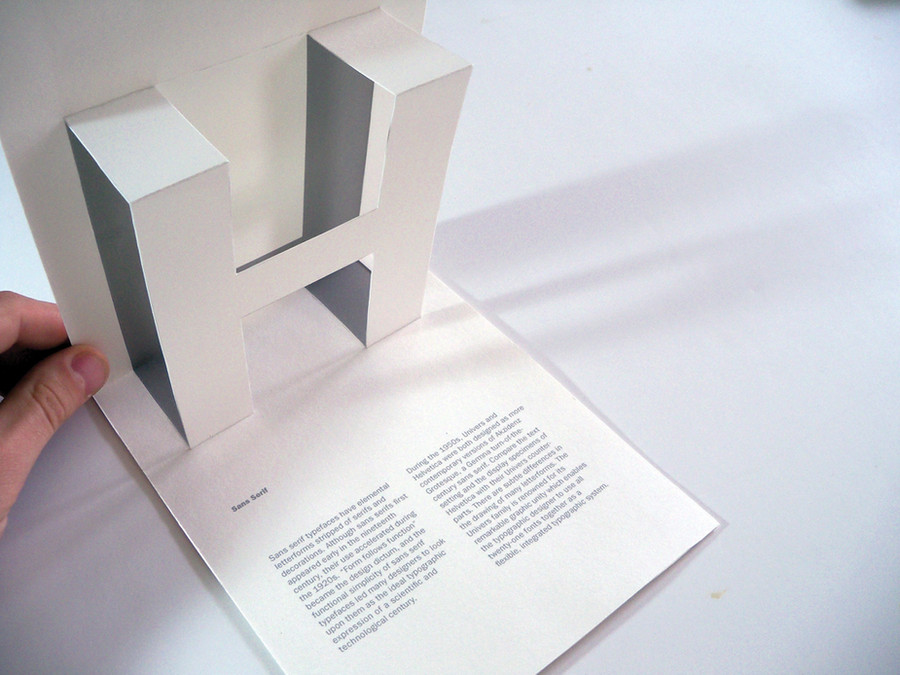
For this self-initiated project, I wanted to promote the history of the five basic classifications of typefaces in a new and interesting way. Opposed to simply reading text on the history of typefaces and looking at an example on a 2D surface, why not give some life to history.Each individual pamphlet contains a brief history on one classification of a typeface. When opened, a letter pops out at the viewer, giving an example of that typeface accompanied by a brief history at the bottom as well as a small description of what letter is being shown for the viewer.
btw ive just realize you hace made the work twice because i see a white paper bhind the printed one, is that correct?
It took 2 pieces of paper to make this project, on for the pop up letter and text, and one for the gray background behind the letter.
Really nice designed, simple and effective, Everything communicates something, i love the white space all around, i love the texture, as well as the typeface. just wondering how it would look with the left paragraph aligned with the last sentence of the right paragraph,but as i said brilliant idea and ejecution!
i also like the idea that the letter is presented in each page poping up, i ve done a similar thing in a project of college representing behaviours in type